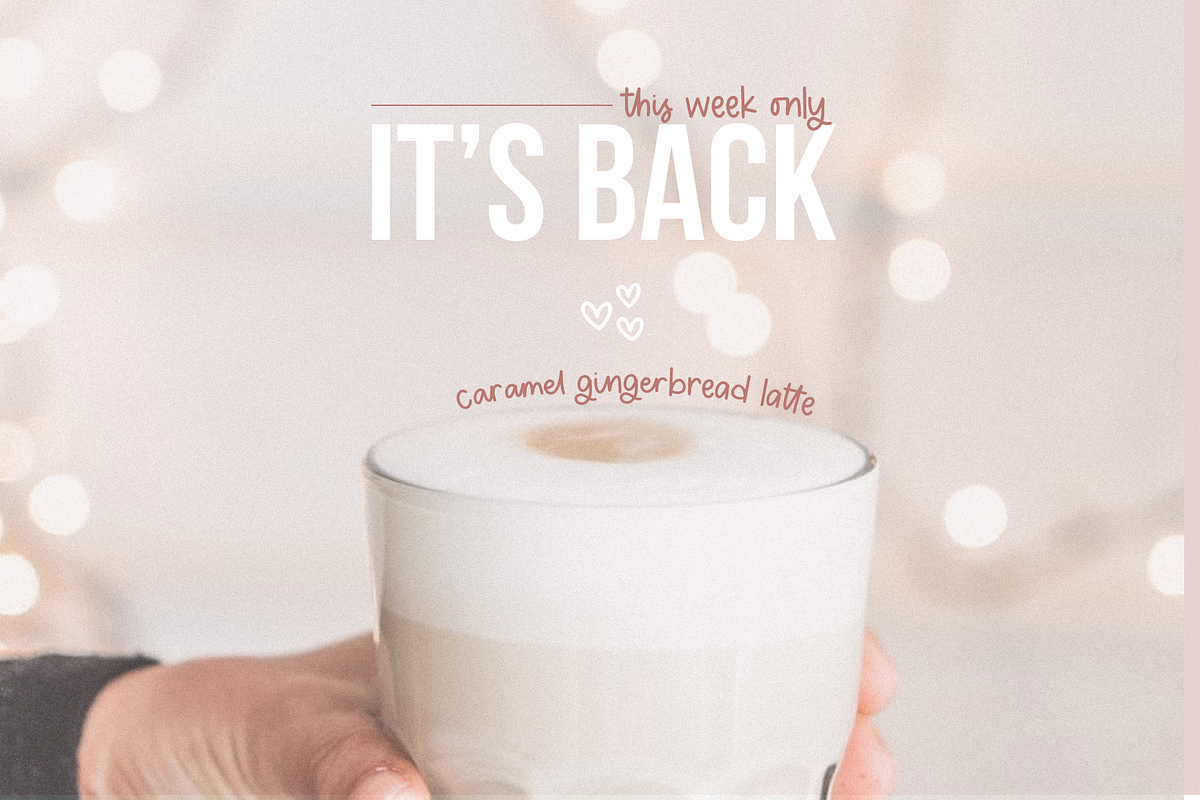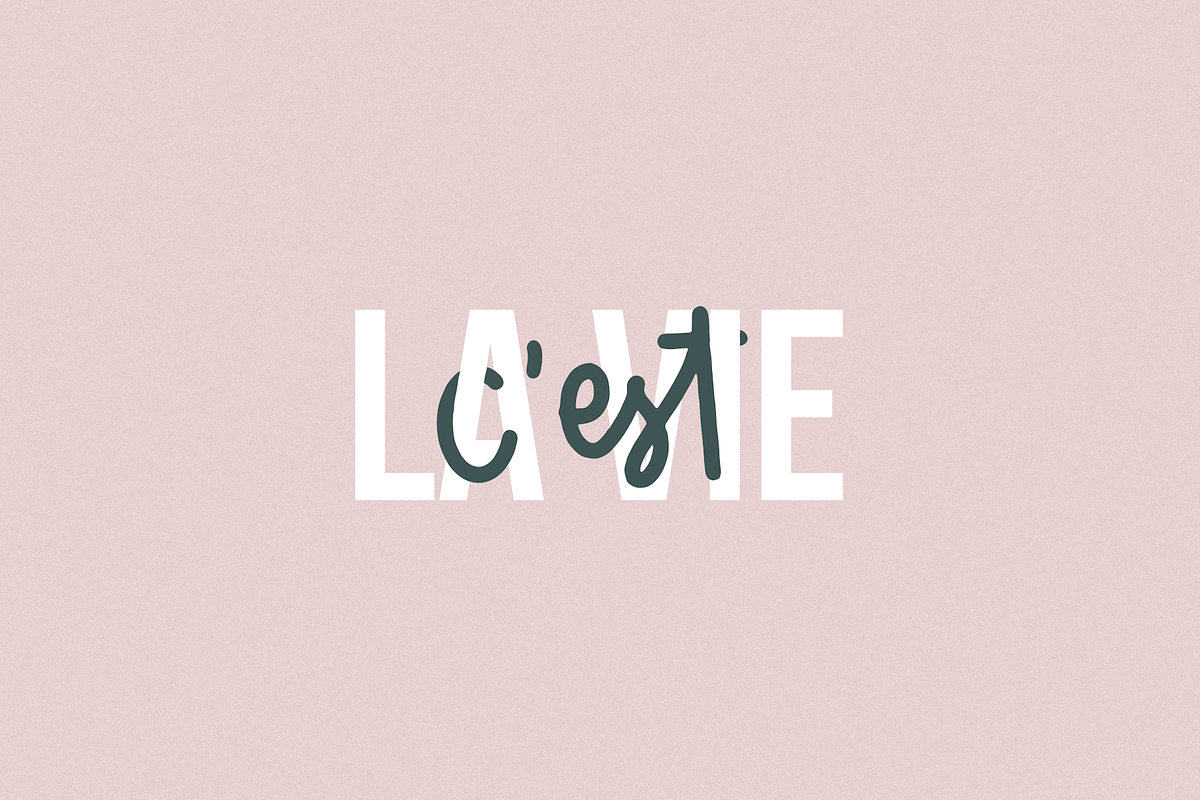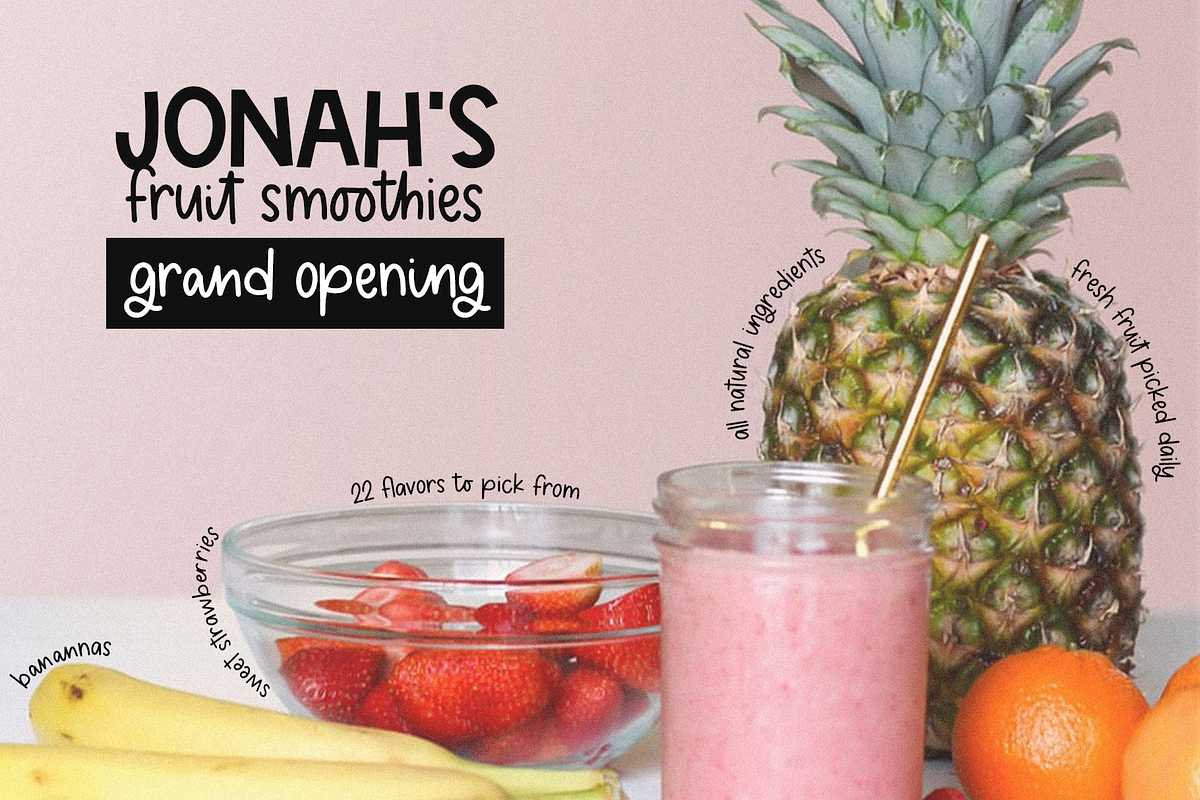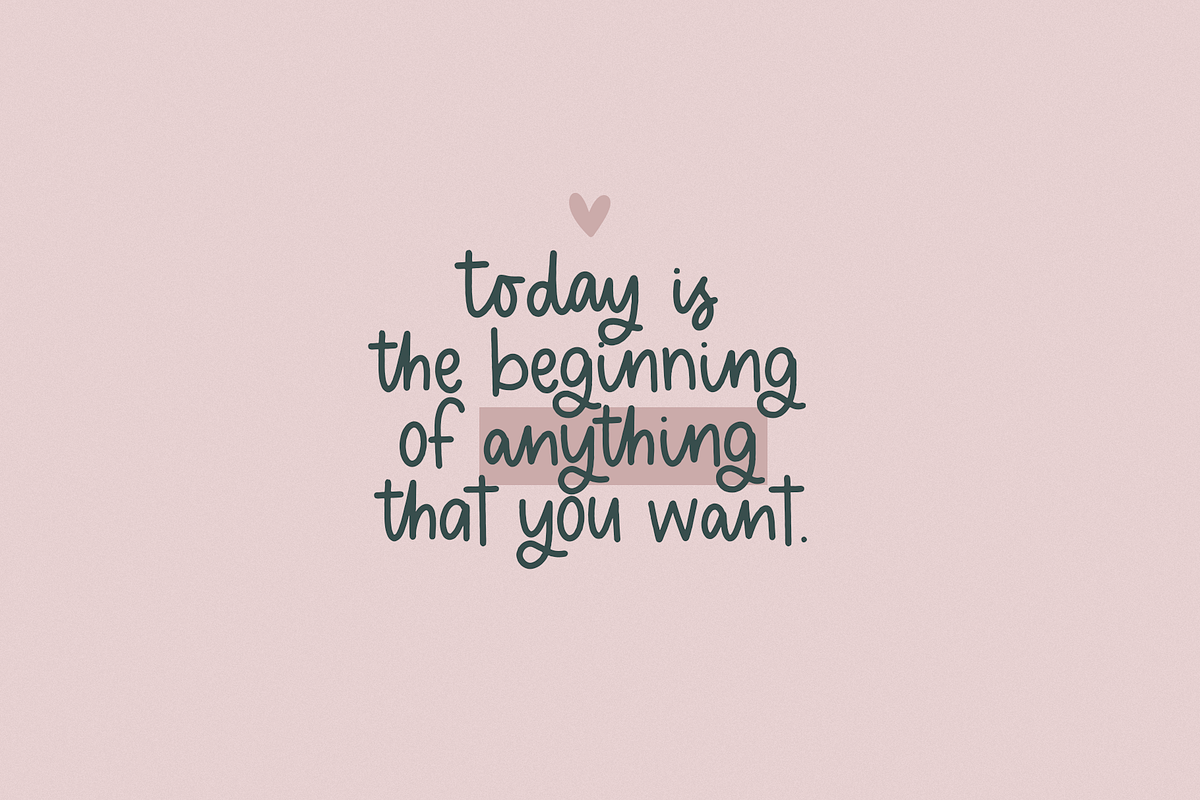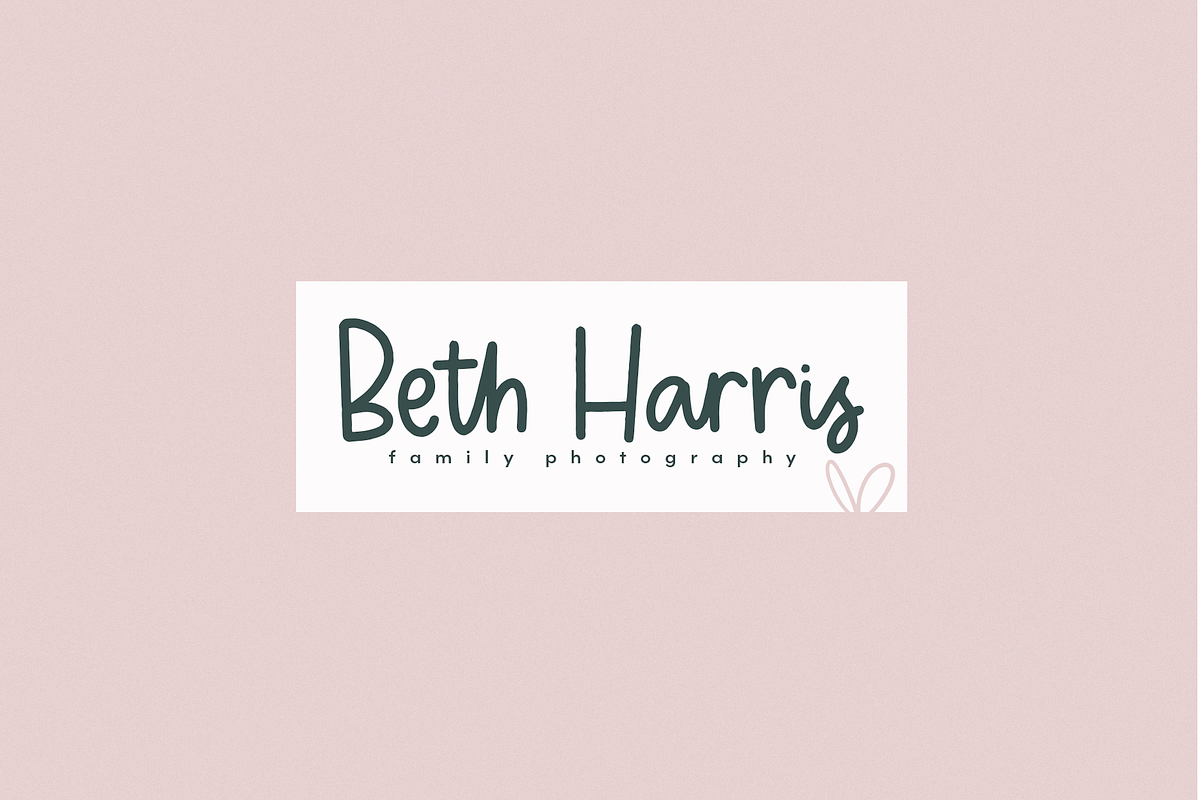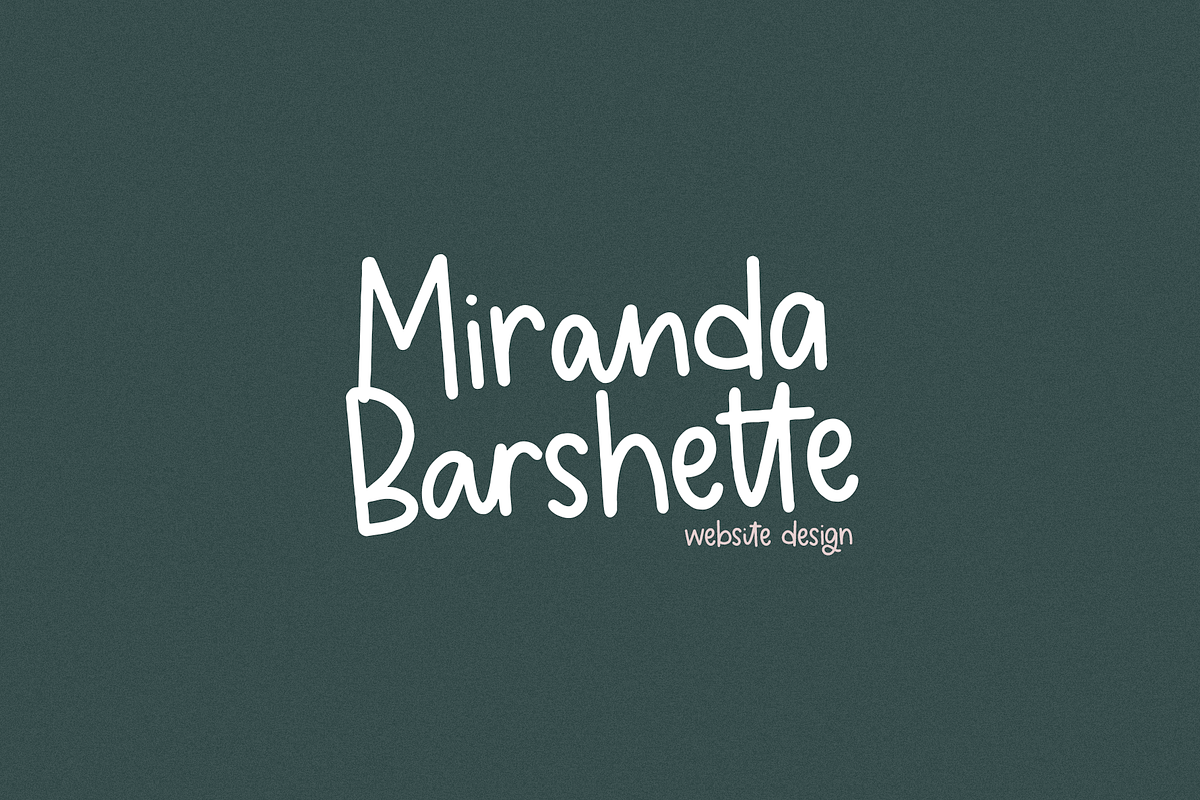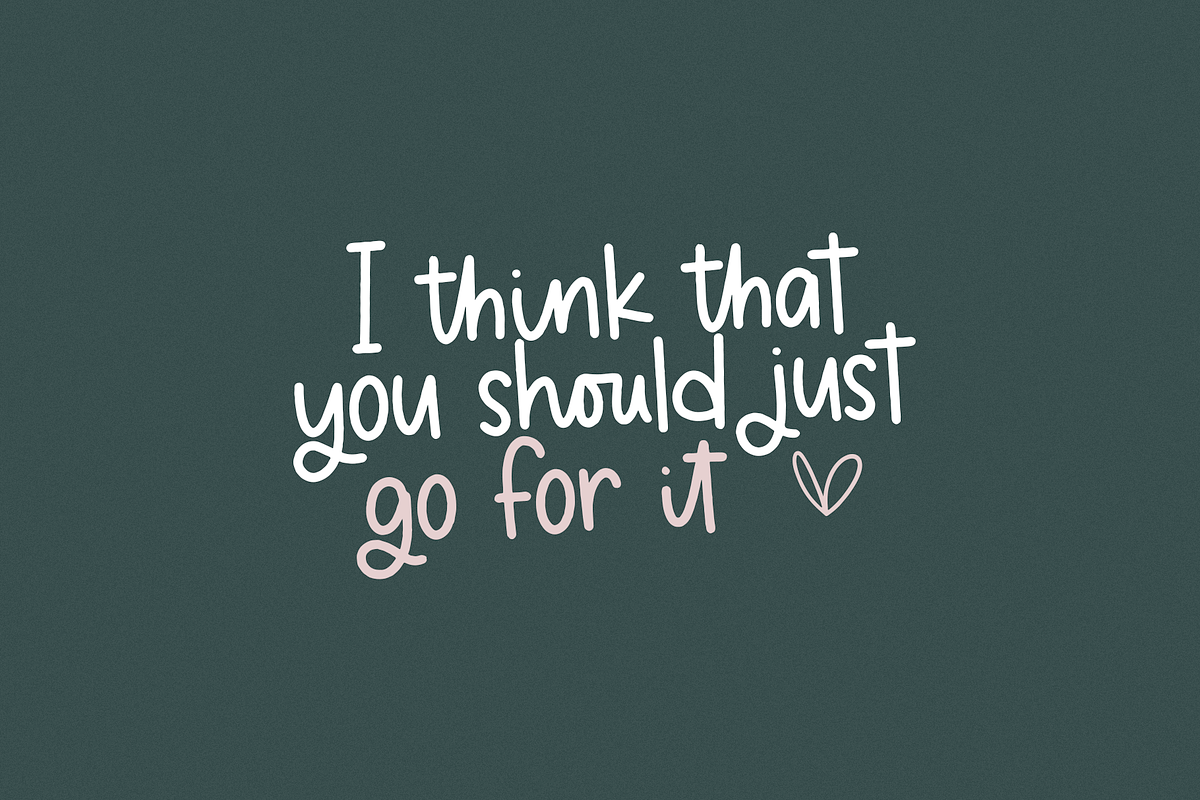
West Paris | Handwritten Font
West Paris is a cute handwritten font!
There are a ton of fun ligatures that give this font it's quirky and authentic look!
This font is perfect for quotes, shirt designs, websites, branding, children's designs, blogs, logos, invitations and more!
- Most accent characters included.